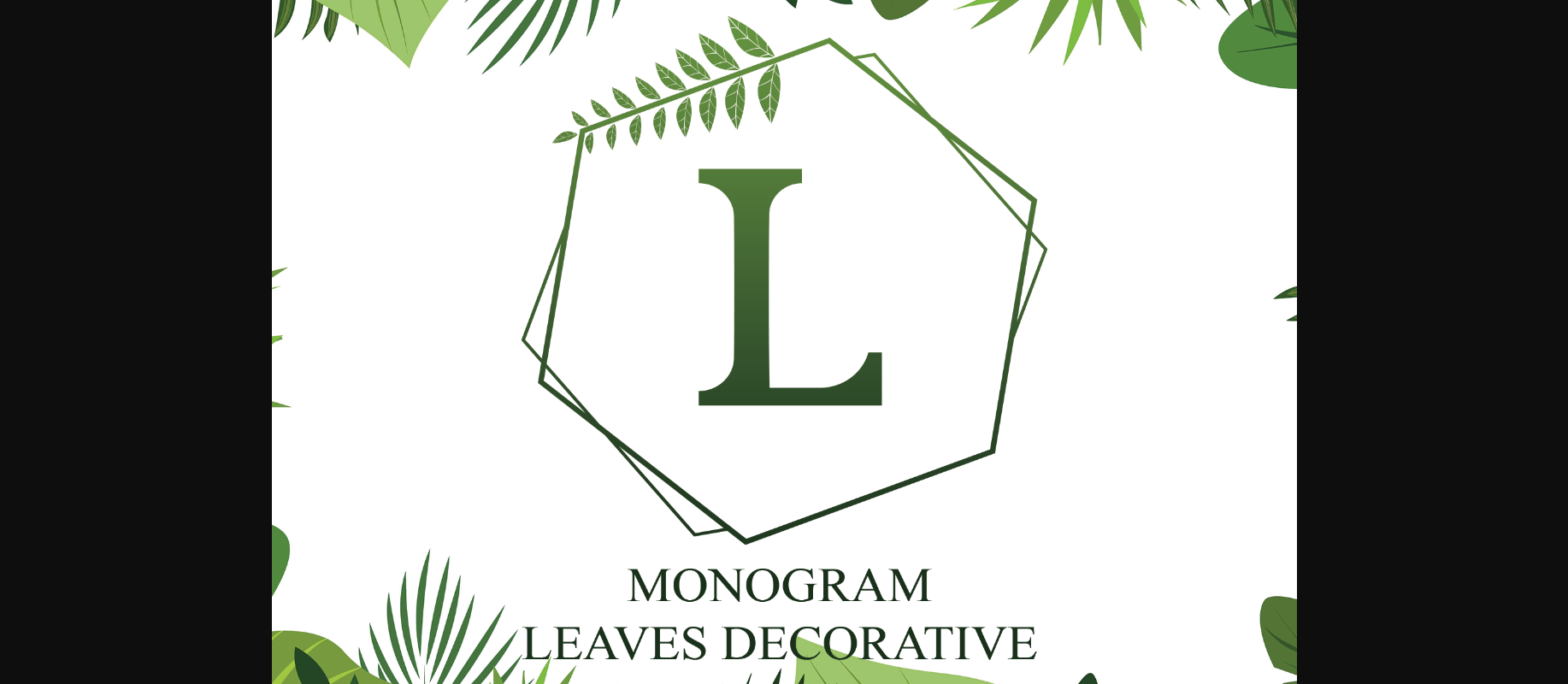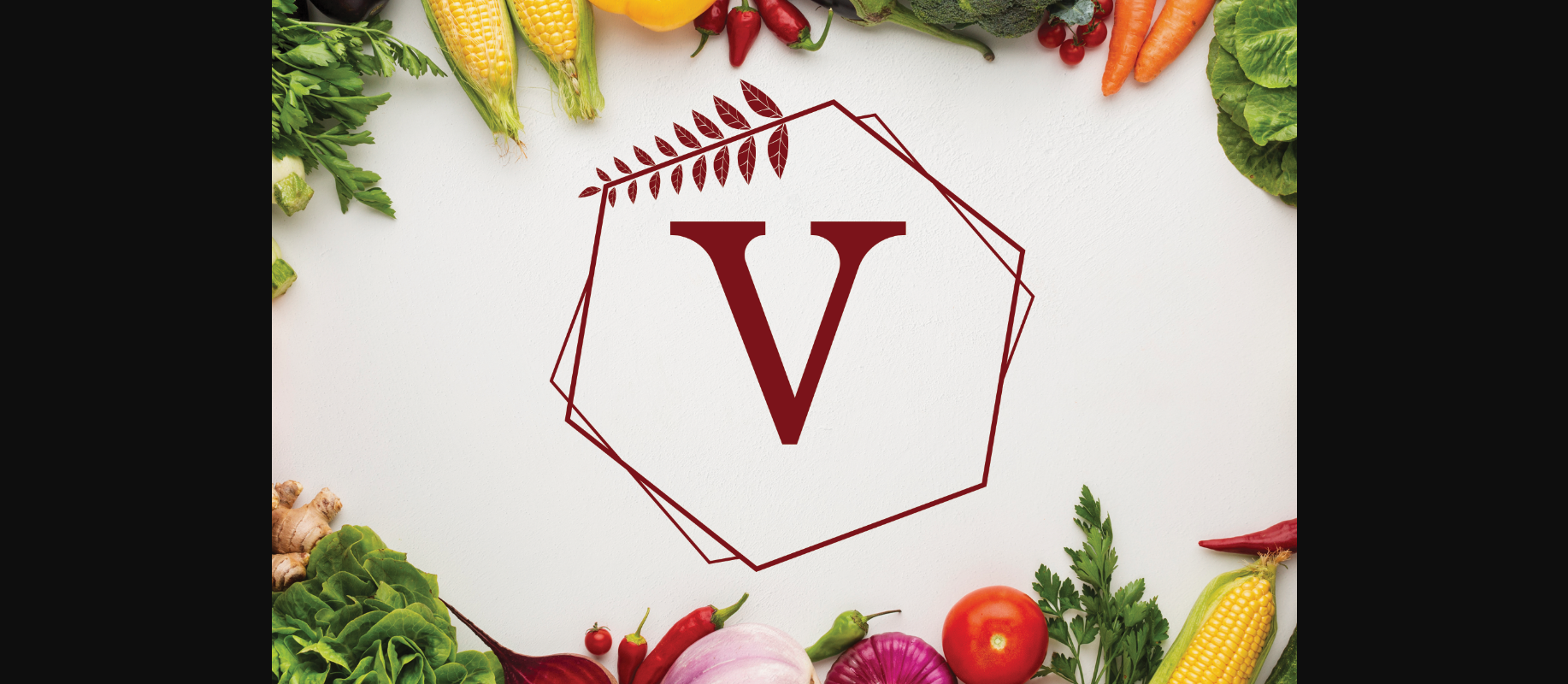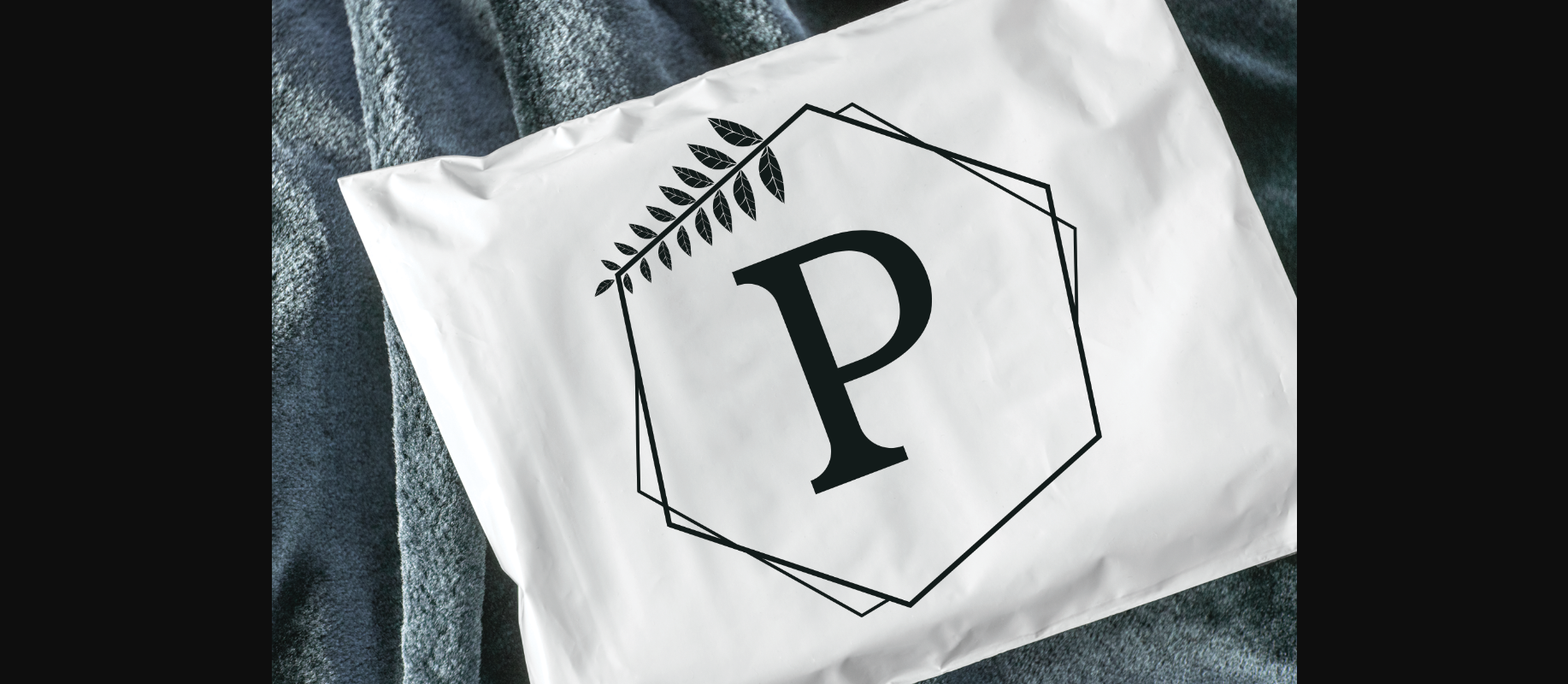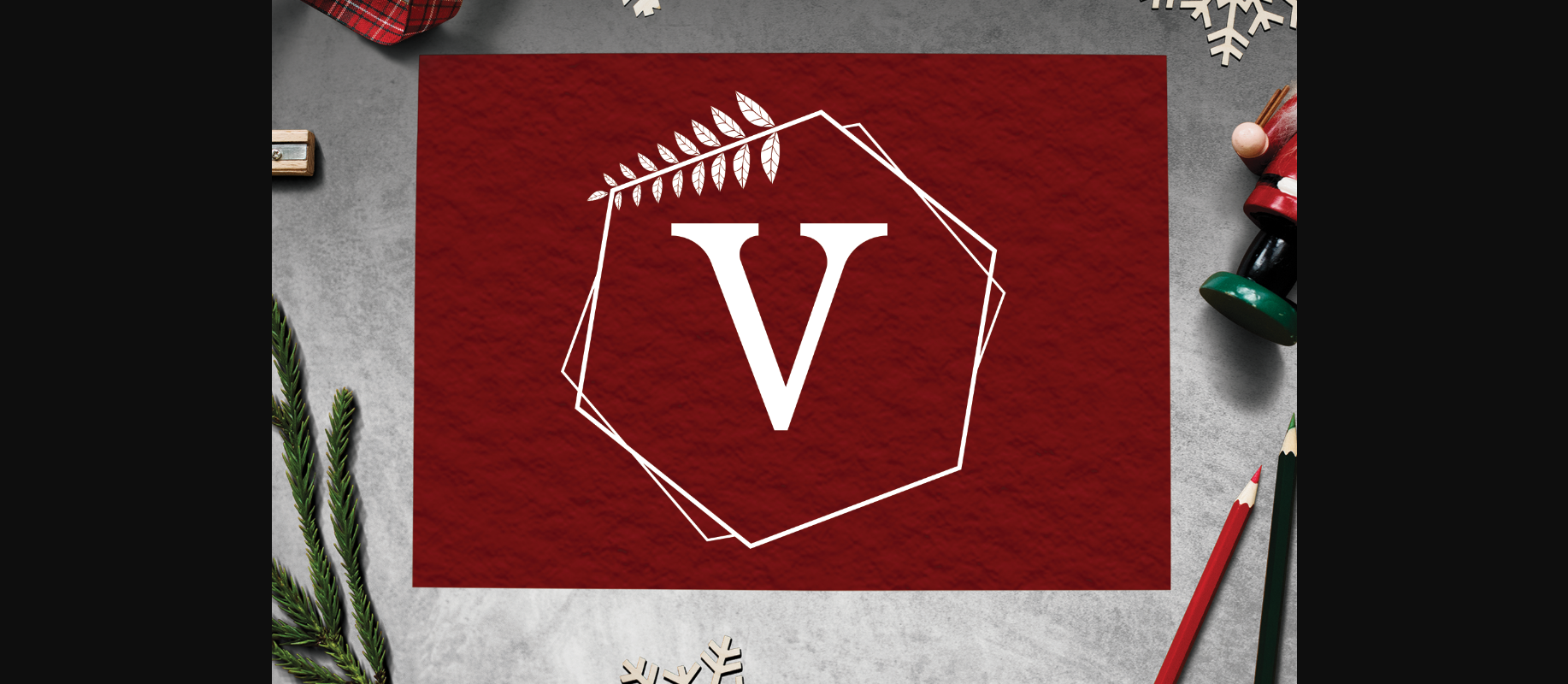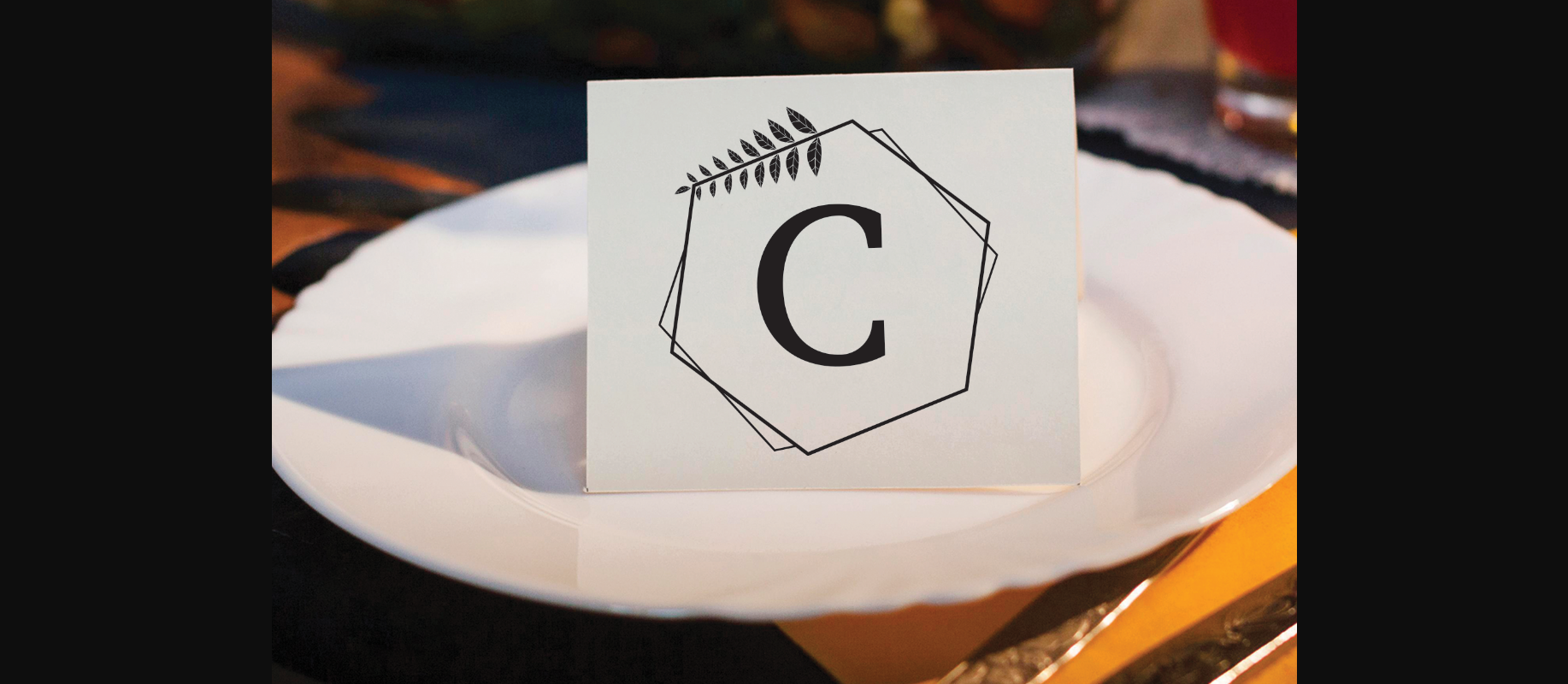
Leaves is a delicate and fresh decorative font. Add this beautiful looking font to each of your love letters, wedding invitations or favorite design ideas, and you will be astounded by the outcome.